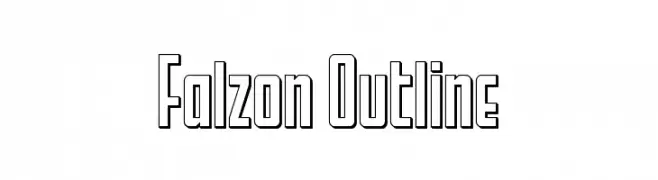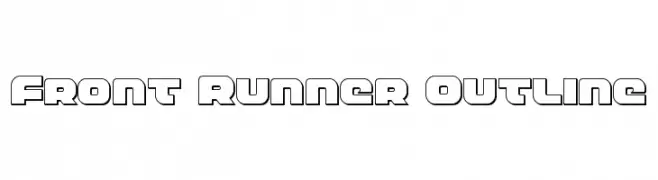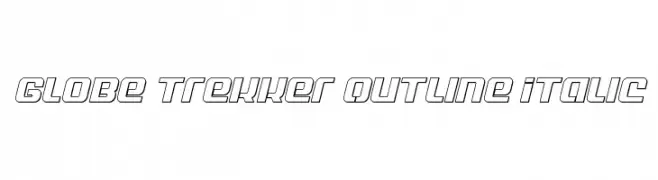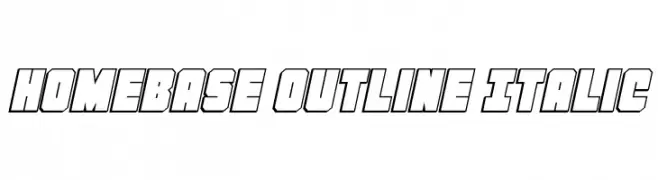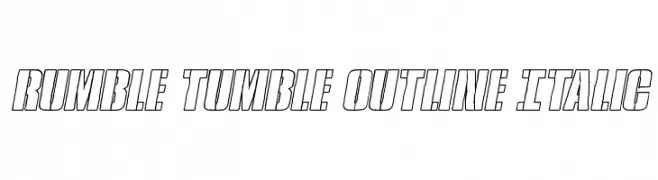
A bold, outlined, italic font with a modern and dynamic style.
A geometric outline font with angular, structured letterforms and a modern aesthetic.
A bold, italic outline font with a modern and dynamic style.
A bold, geometric outline font with a modern and striking appearance.
A bold, geometric outline font with a modern and futuristic style.
A bold, outlined, italic font with a dynamic and modern style.
A bold, geometric outline font with strong, angular lines and a modern aesthetic.
A bold, geometric outline font with a modern, industrial aesthetic.
A bold, geometric outline font with an italicized, modern design.
A bold, outlined font with a futuristic and geometric design.